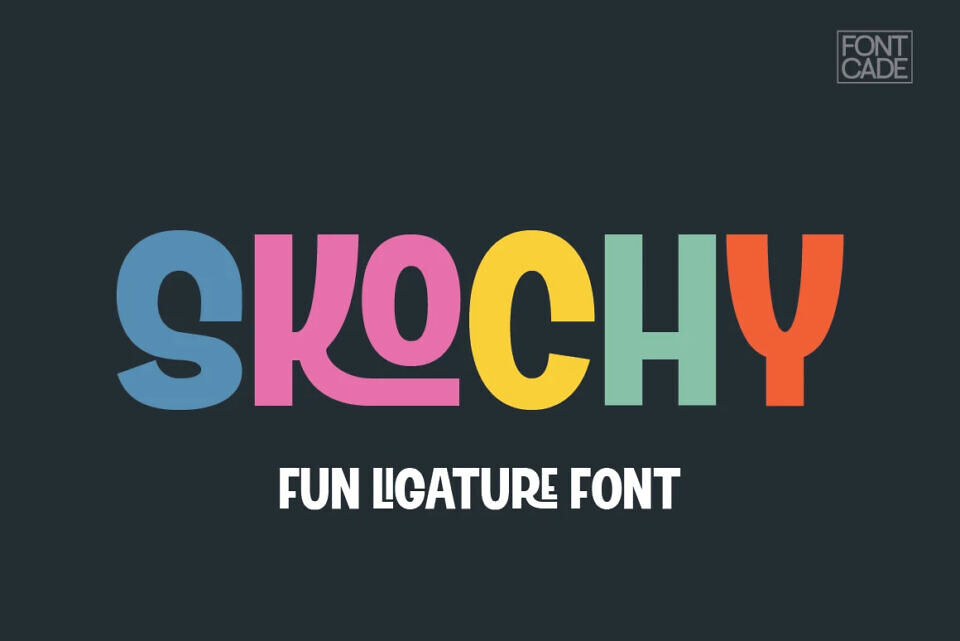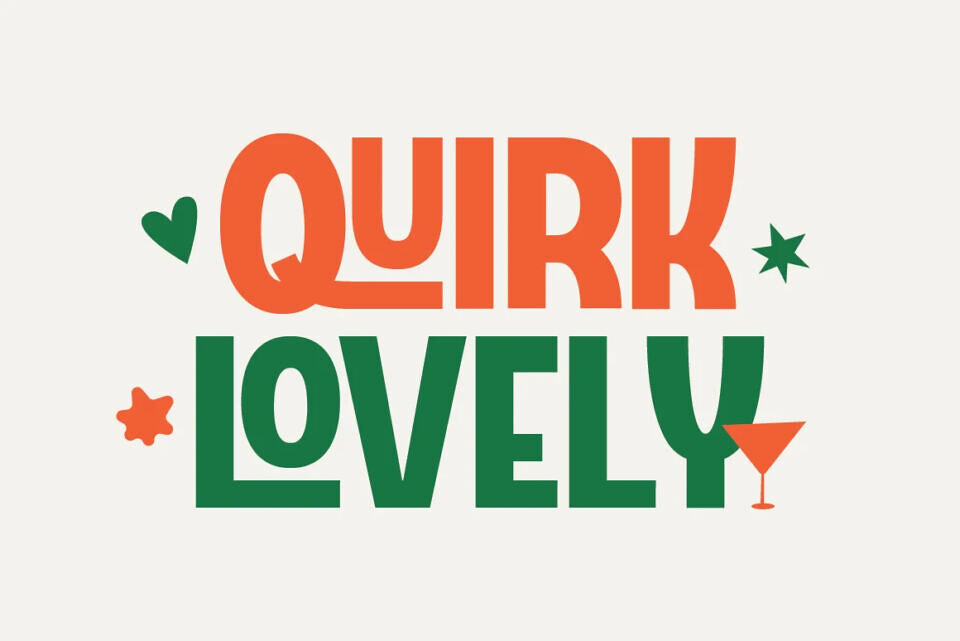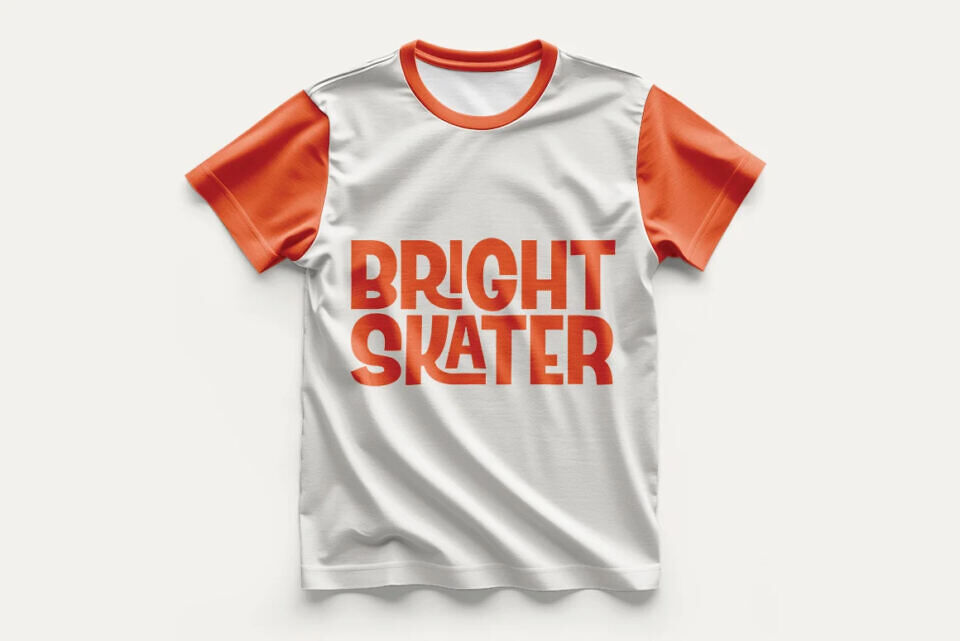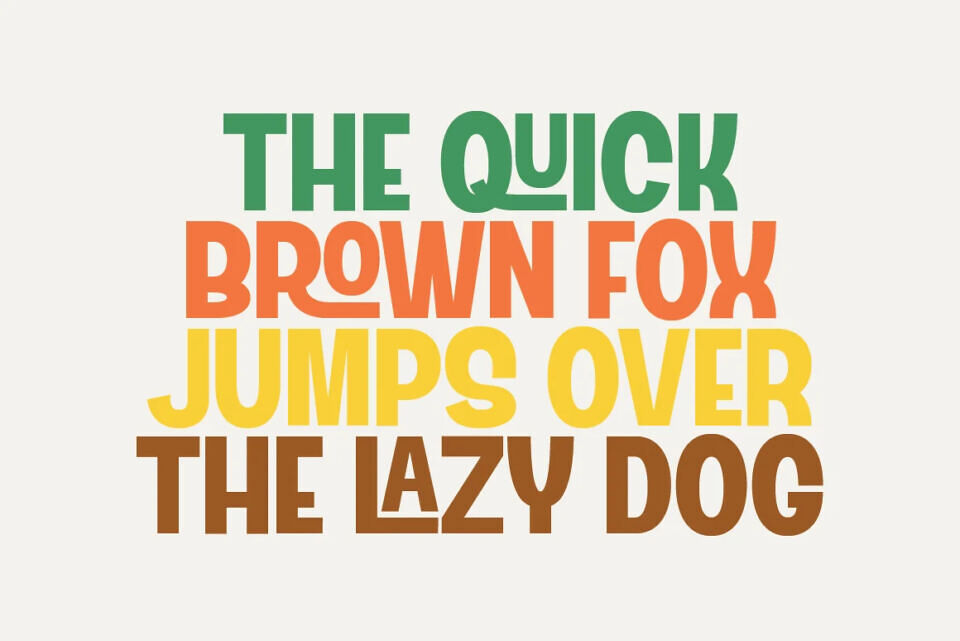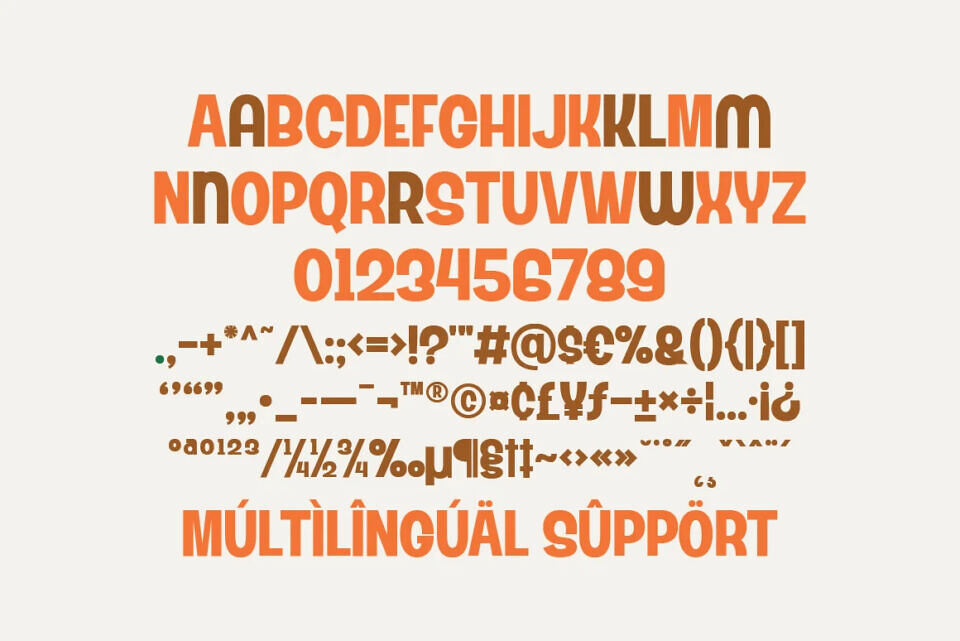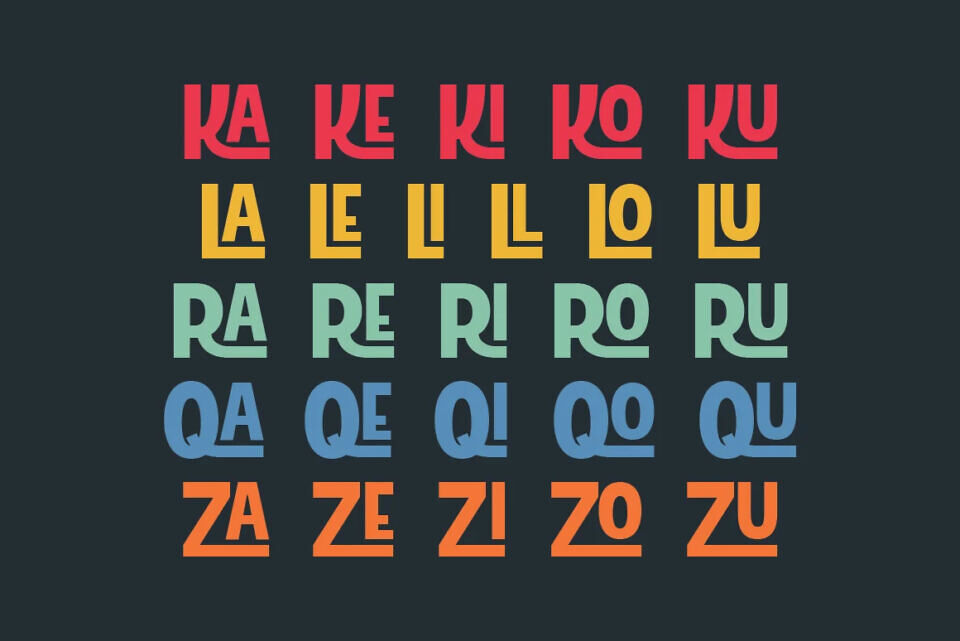
Skochy Font
Skochy is a playful hand-drawn display font designed to bring character and charm to your projects. With 26 fun ligatures, it adds a unique touch and a lively vibe to any design. Perfect for posters, branding, social media, and more, Skochy is a must-have addition to your font collection!